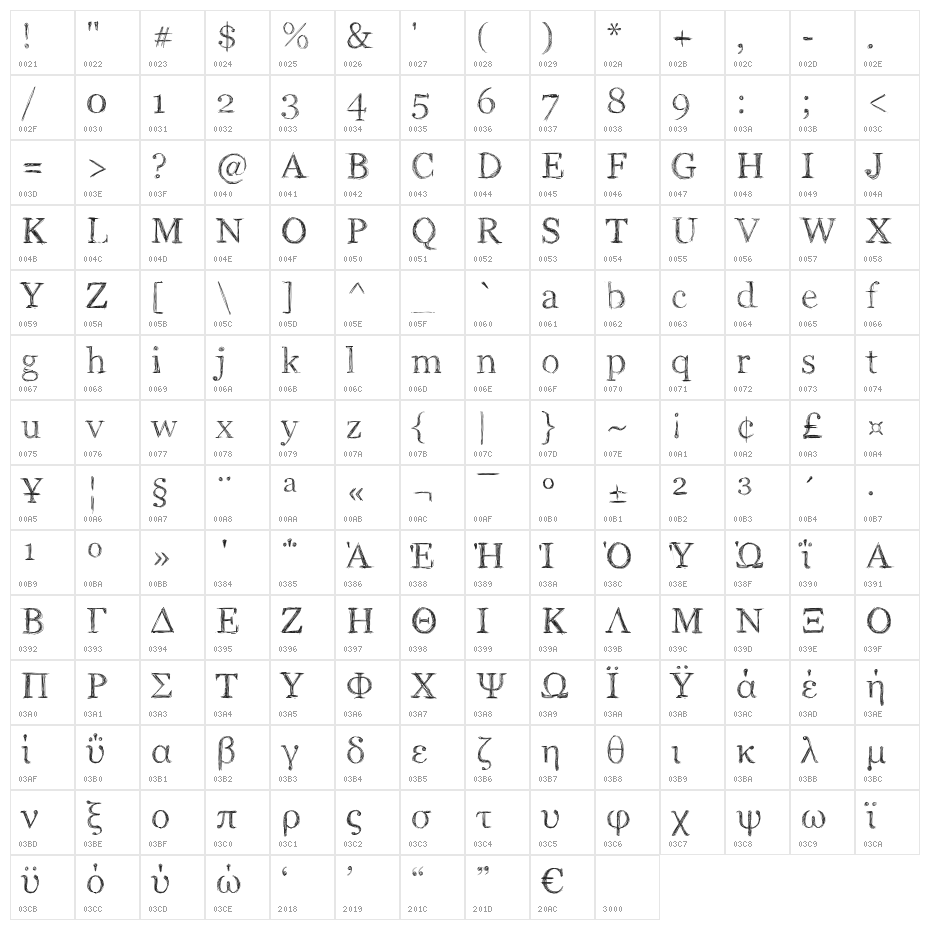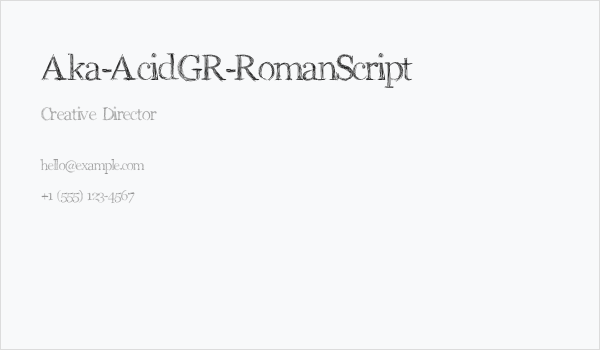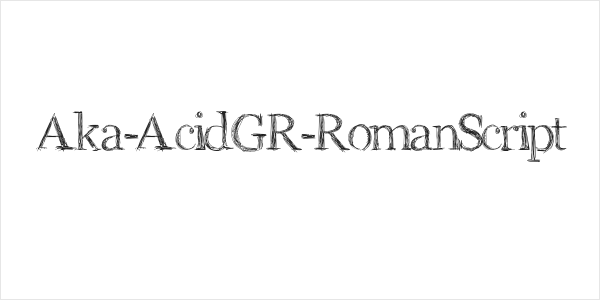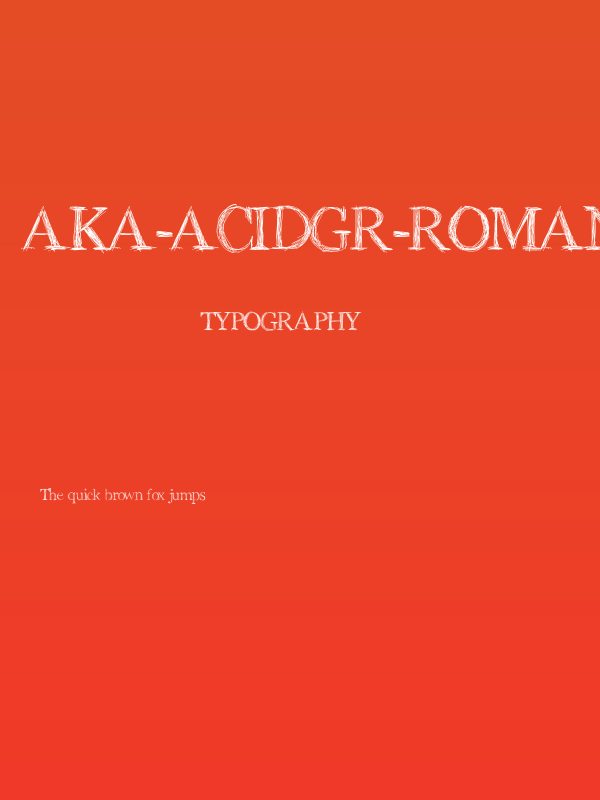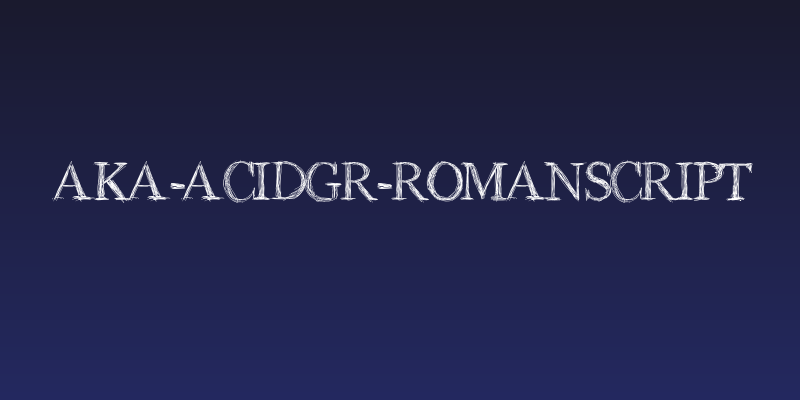
Aka-AcidGR-RomanScript Font
| 全体的なスタイル | Artistic, Edgy, Playful |
| 用途 | Headlines, Logos, Artistic Projects |
| おすすめプロジェクト | Ideal for creative projects such as posters, album covers, artistic branding, and unique invitations. |